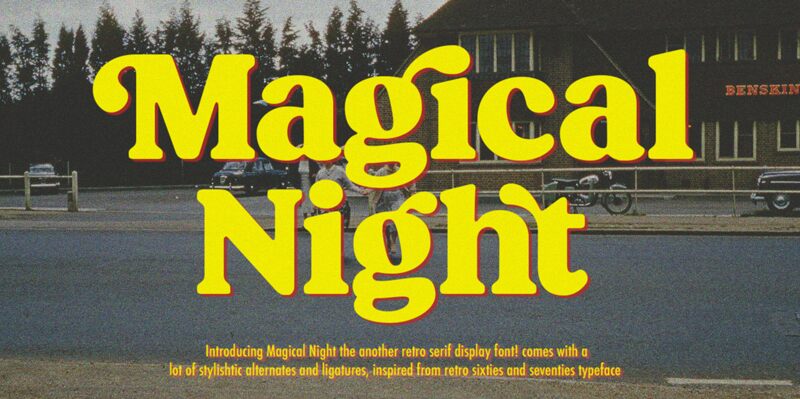
Magical Night (DEMO) Regular
Magical Night, crafted by Viswell Studio, is a captivating display font that exudes a bold retro charm. With its robust and lively letterforms, this font dances with an energy reminiscent of vintage signage and classic advertising. The playful curves and substantial presence of Magical Night offer a visual feast that commands attention, making it perfect for headlines, posters, branding, or any project that desires a touch of nostalgia.
The aesthetic allure of Magical Night lies in its ability to transport viewers to an era where design was both fun and impactful. Its suitability spans from evocative editorial spreads to thematic event invitations—anywhere a statement needs to be made with both confidence and whimsy. Embrace the enchantment of yesteryears with Magical Night—a font that truly turns every design into a celebration.